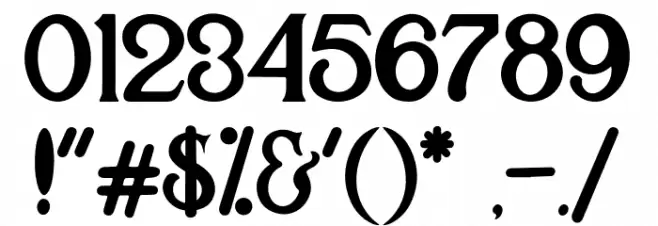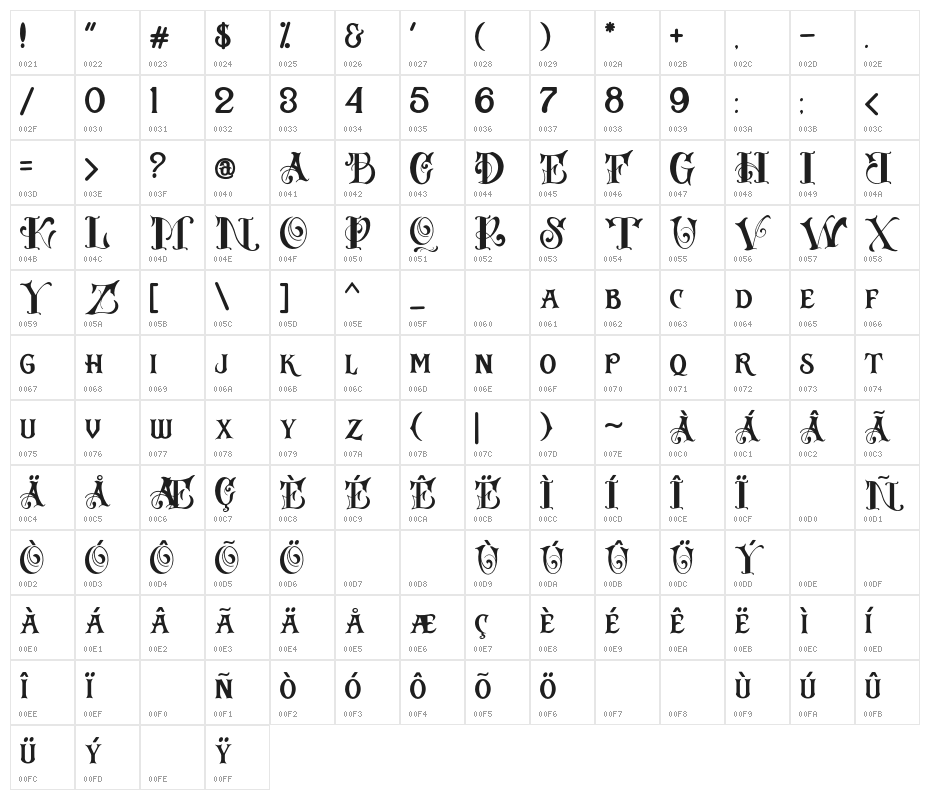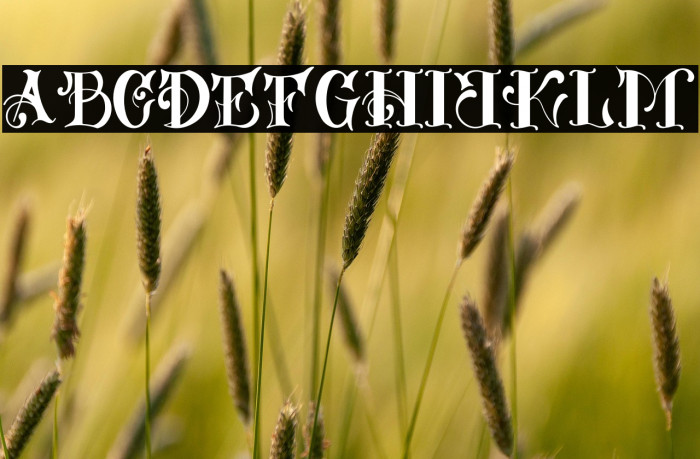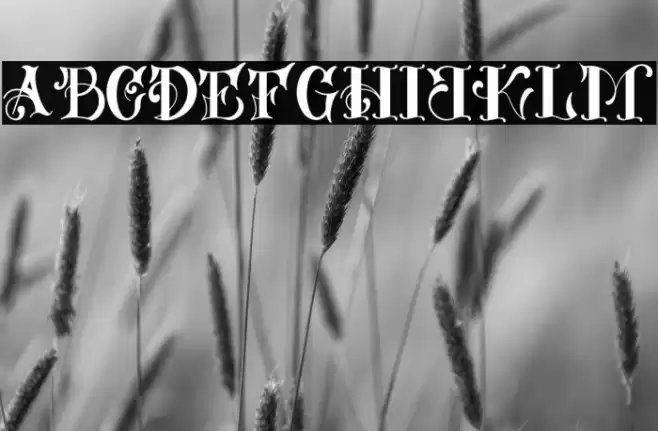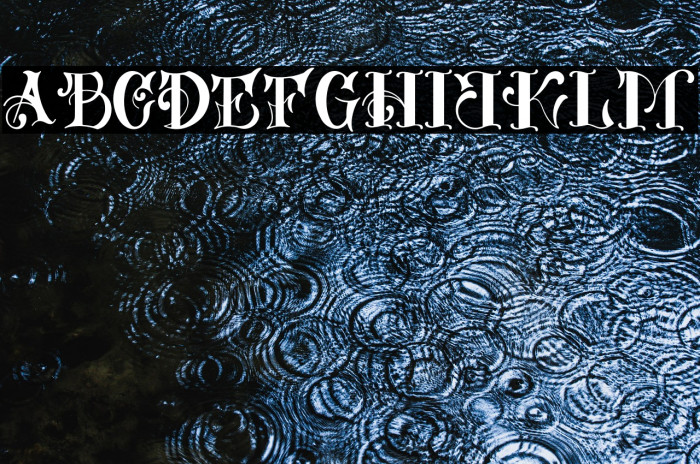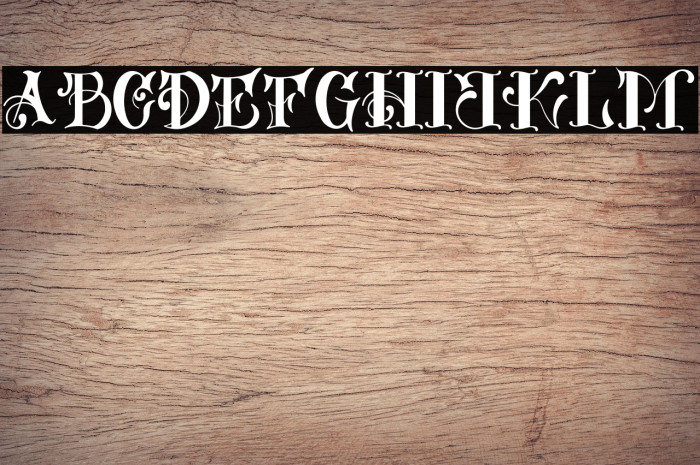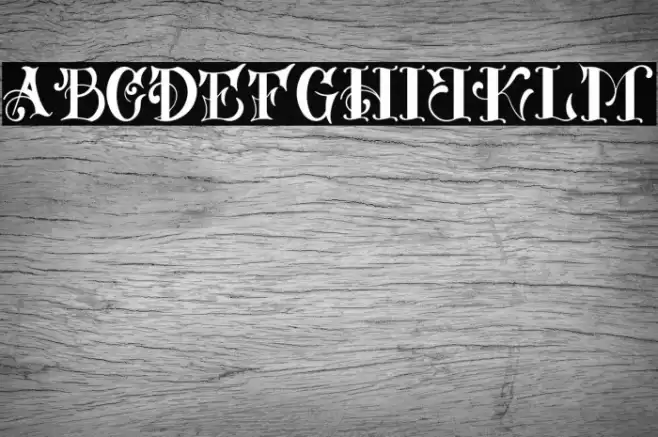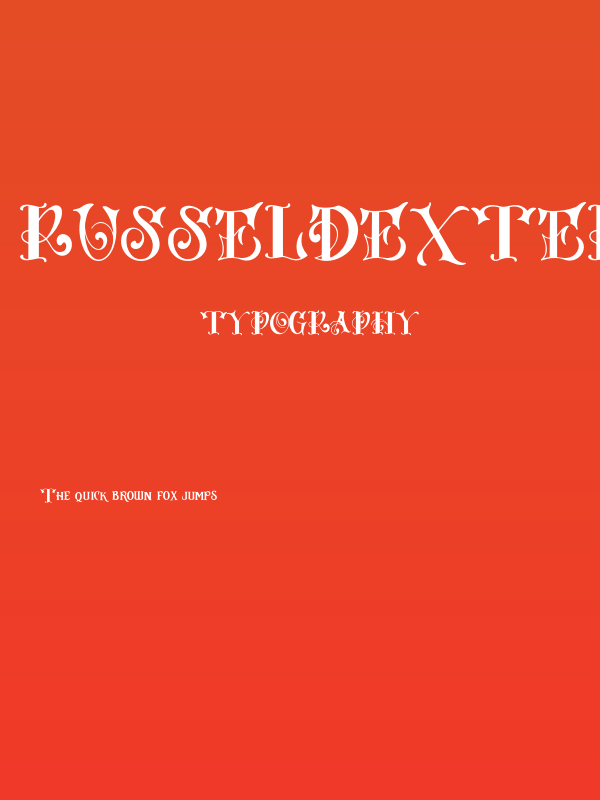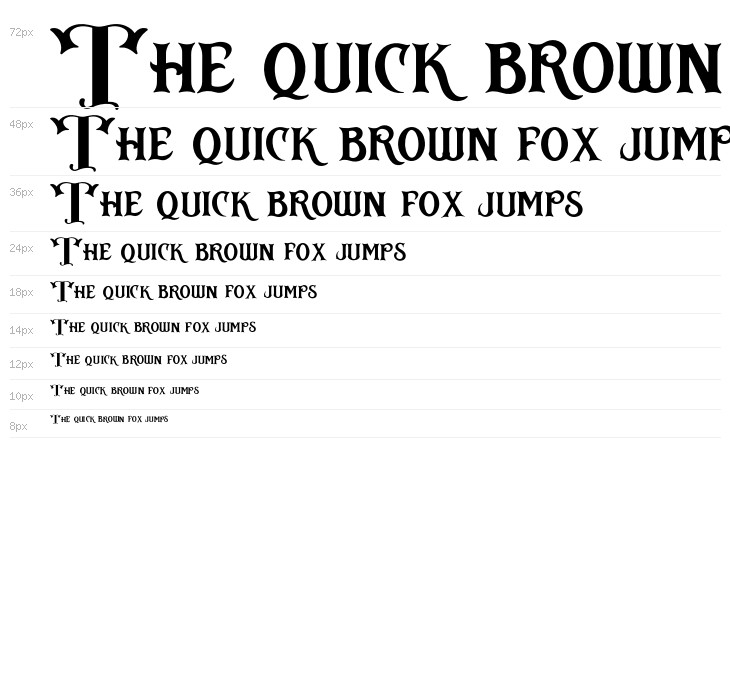
Russeldexter Font
Russeldexter Description
This font presents a unique blend of decorative and bold elements, offering a striking visual appeal. The uppercase letters feature intricate flourishes and embellishments, reminiscent of vintage calligraphy, while the lowercase letters maintain a more straightforward, yet bold appearance. The numerals and special characters are designed with a consistent boldness, ensuring readability and impact. The overall style is both artistic and robust, making it suitable for projects that require a touch of elegance and strength.
Overall StyleVintage, Decorative
Proposed ProjectsIdeal for branding, poster design, invitations, and any project requiring a bold, artistic touch.